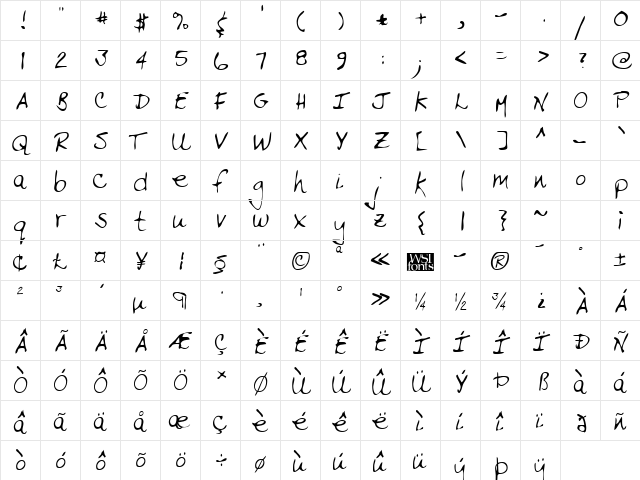
TullysHand Regular
Design Context for TullysHand Typeface
TullysHand brings a calligraphic fluidity to the page — its connecting strokes and expressive curves give it an unmistakably human quality.
Font Pairing: Combine TullysHand with a simple geometric sans for maximum contrast — the tension between flowing curves and clean structure is a classic typographic pairing.
Pro Tip: Use TullysHand for short runs of text — names, titles, or taglines. Extended body copy in script faces tires the eye quickly.